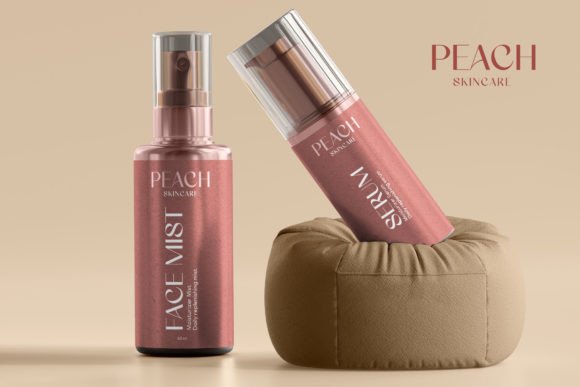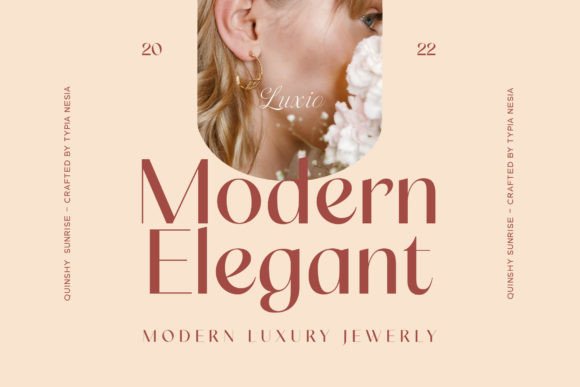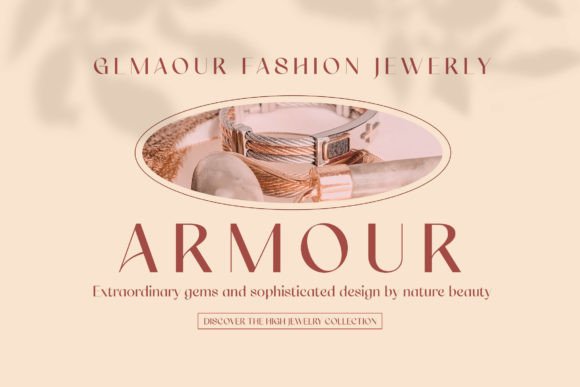
Introduction to Quinshy Font
Quinshy – Modern Beauty Elegant Aesthetic Sans Serif – Expressive Romantic Feminine Lovely Logo Branding Font Quinshy comes with some alternates and ligatures that you can combine to make a perfect typography design.
It is perfect for your upcoming projects such as luxury logo and branding, classy editorial design, woman’s magazines, cosmetic brands, fashion promotional, art gallery branding, museum, boutique branding, stationery design, blog design, modern advertising design, card invitation, art quote, home decor, book/cover title, special events, and any more .